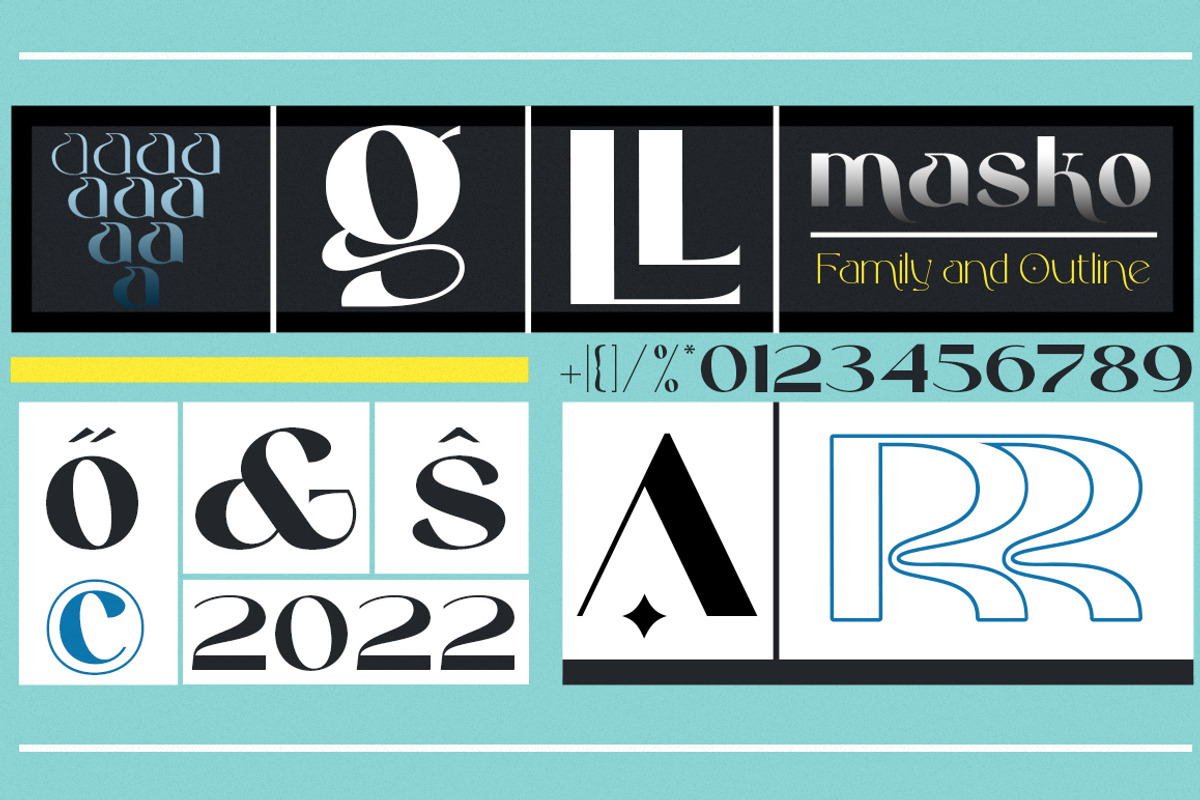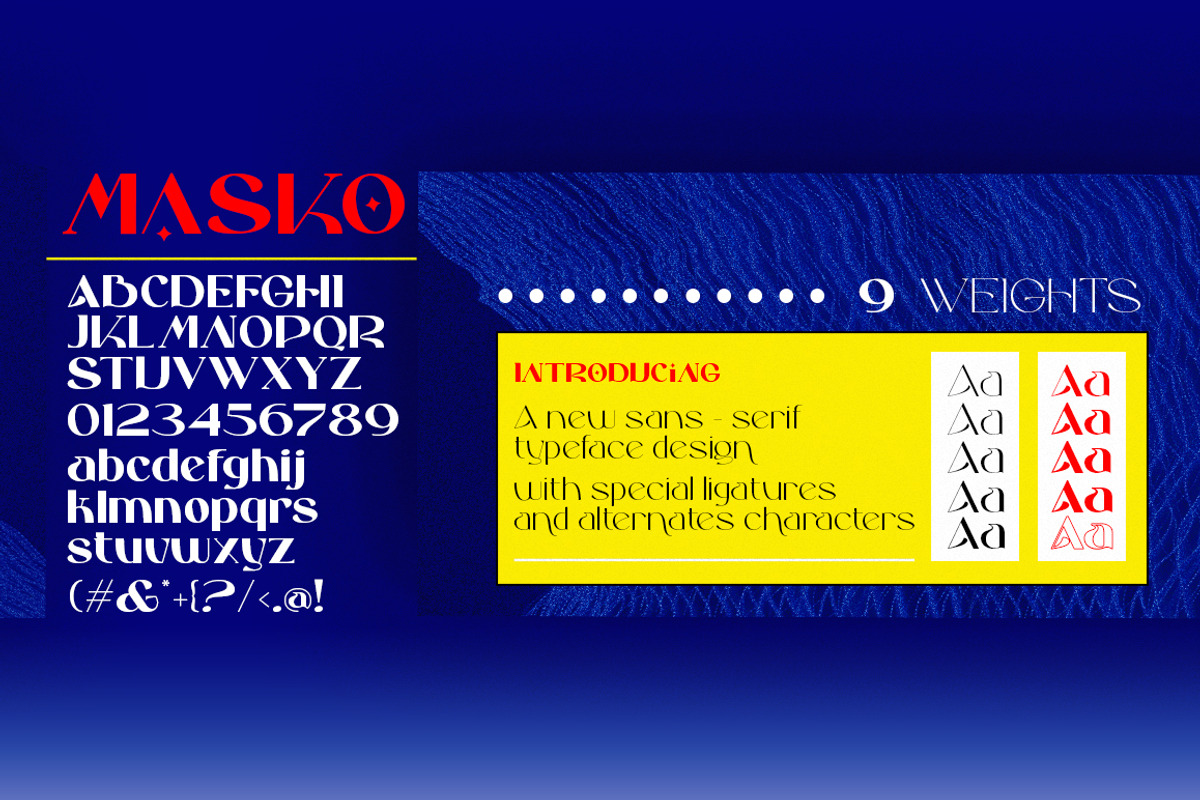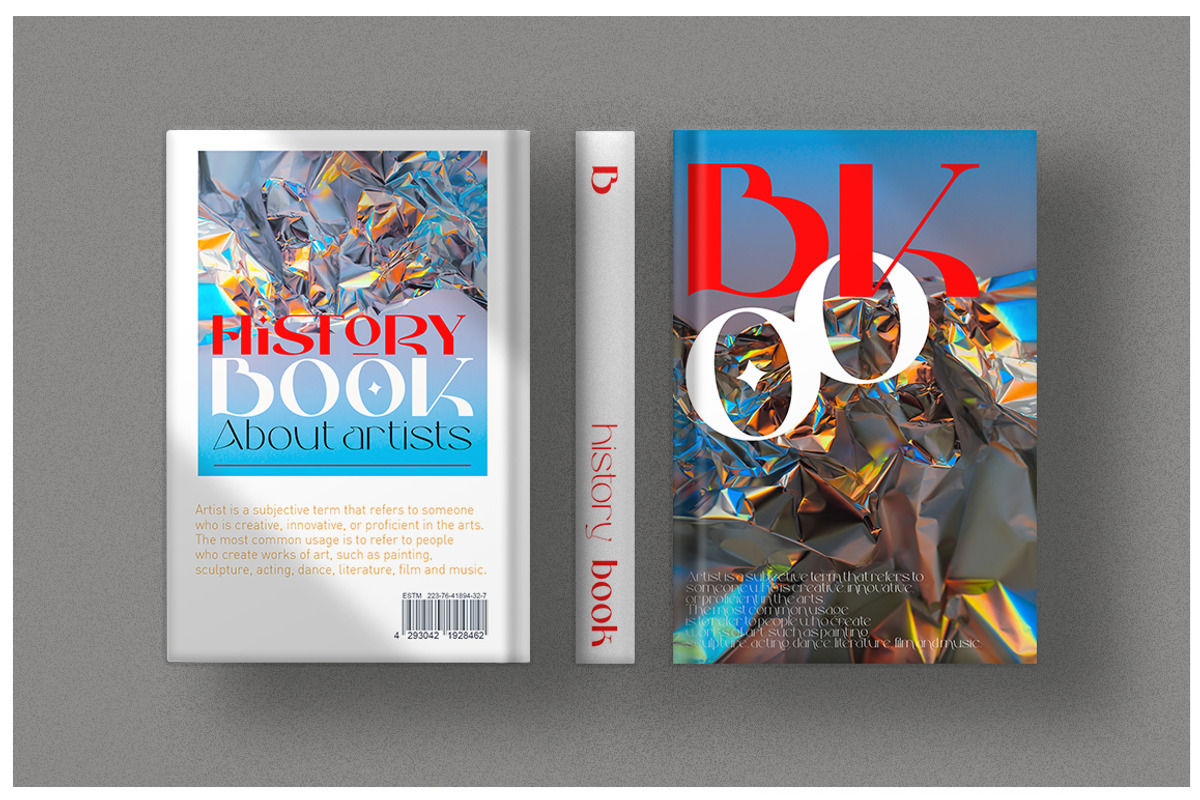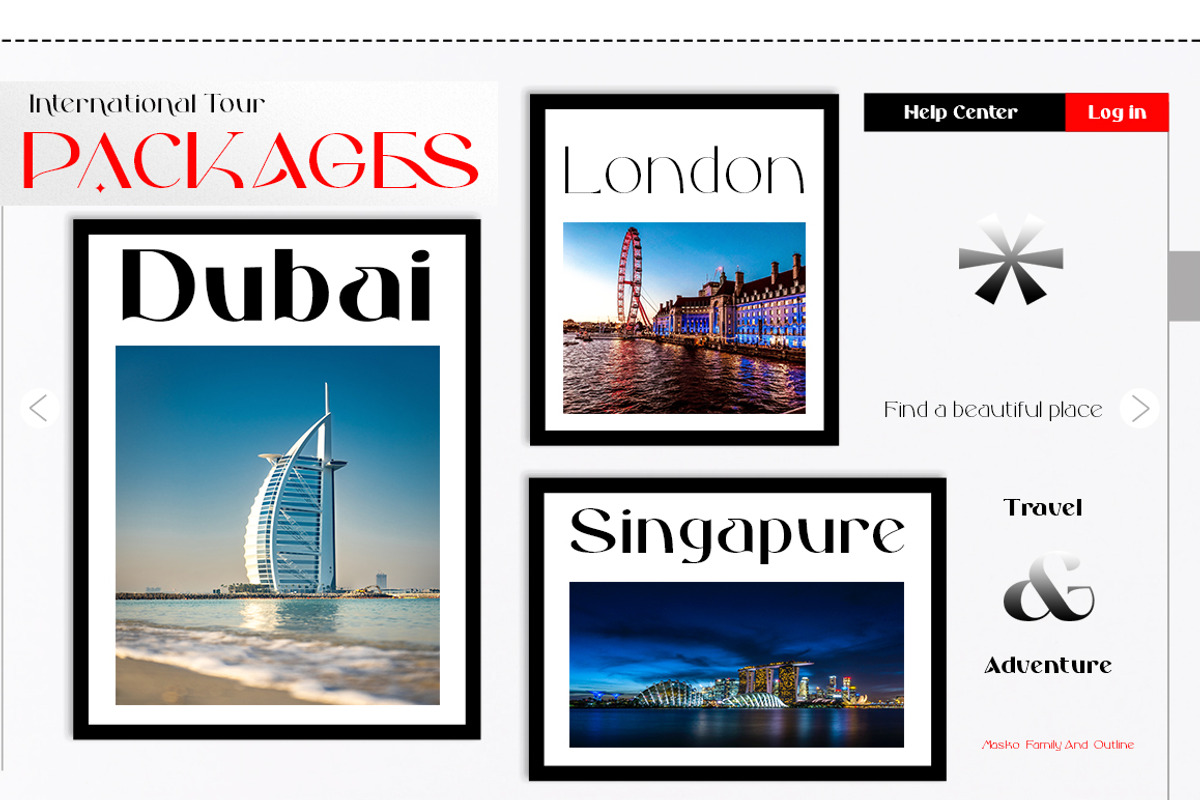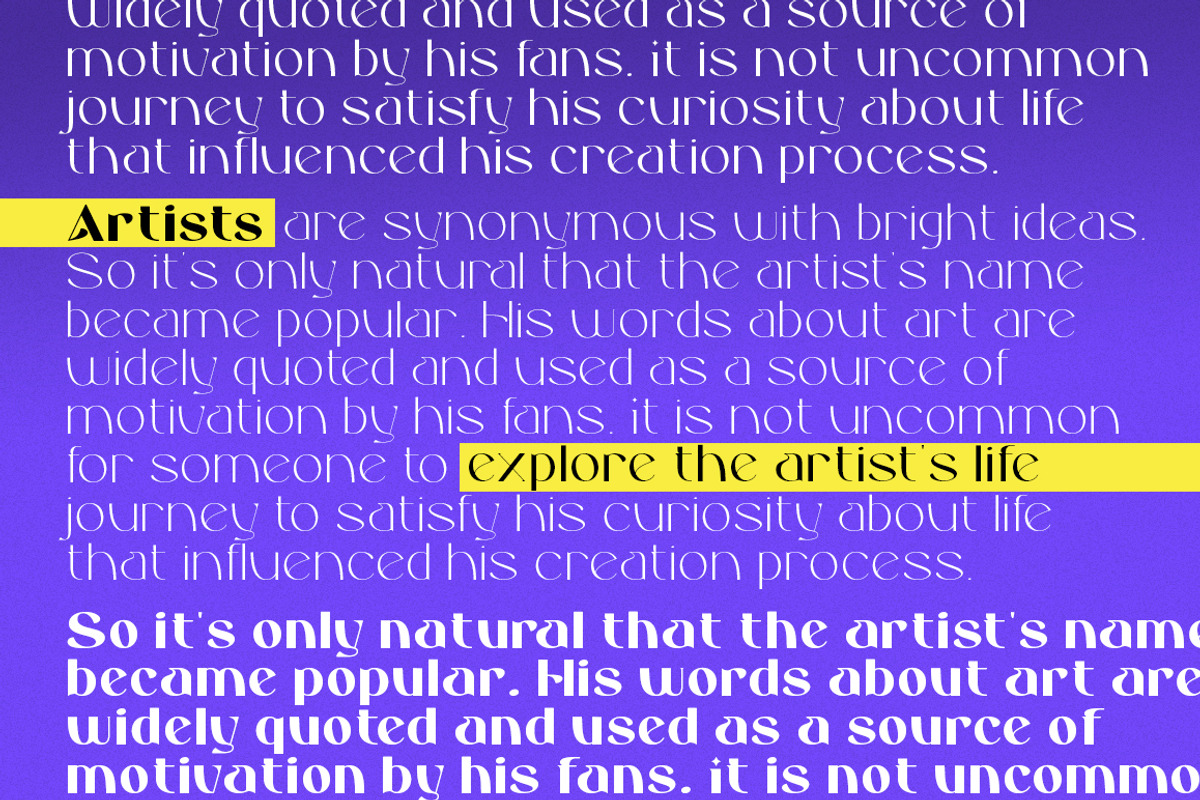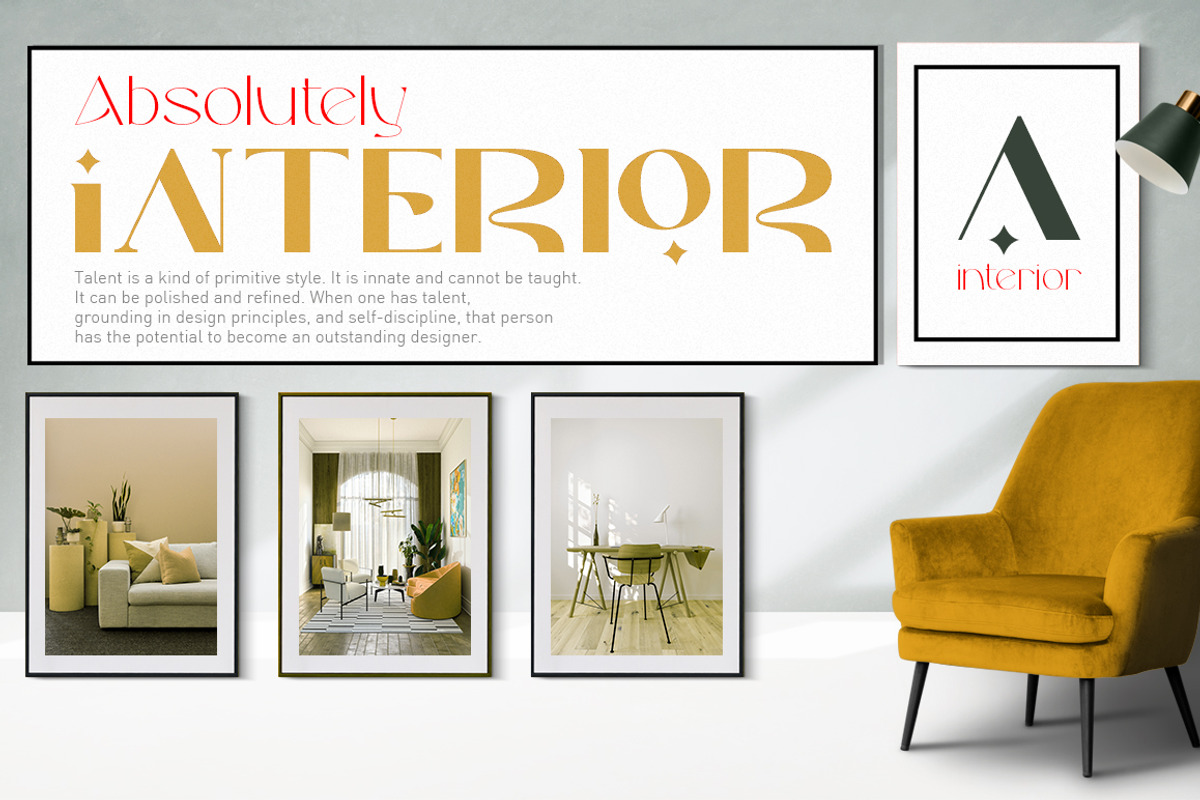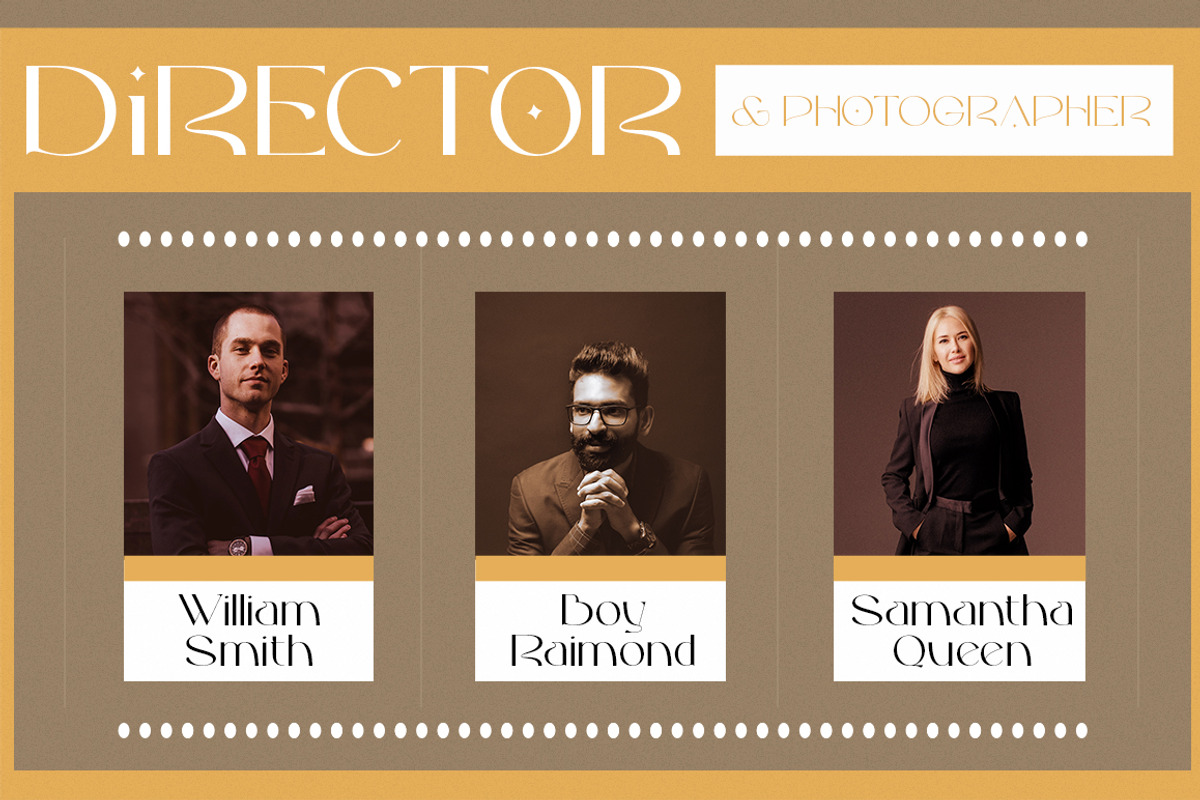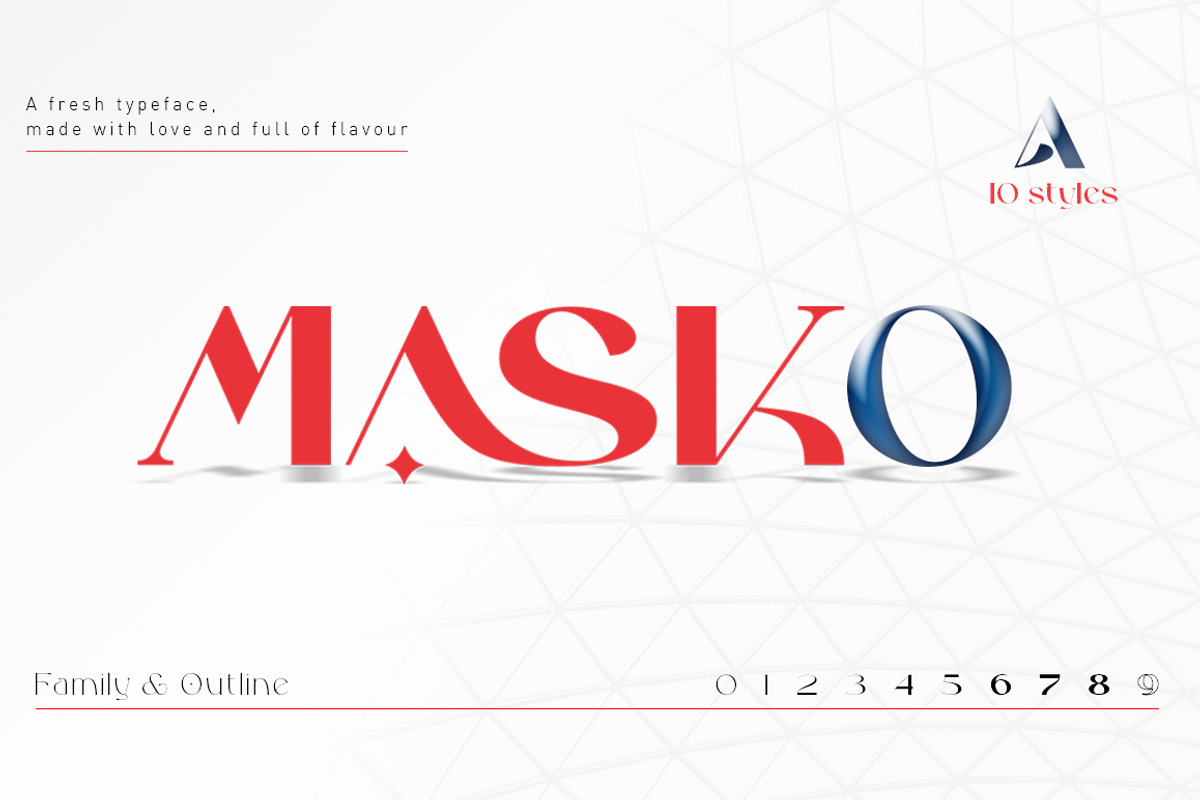
Masko Family
Masko Family is a very versatile font. perfect for magazine images, to wedding invitations, to branding, poster design, and more.
- Stylistic Alternates & Ligatures